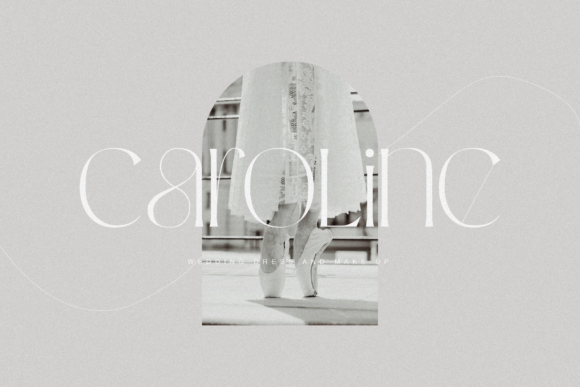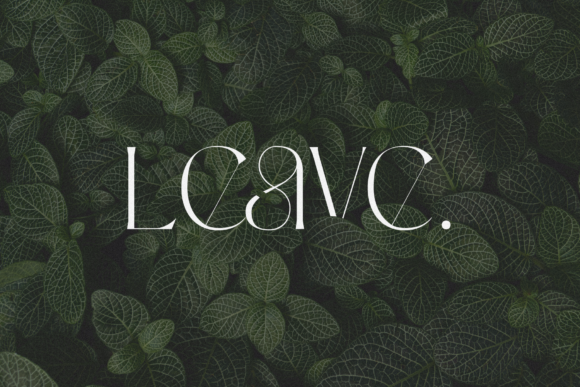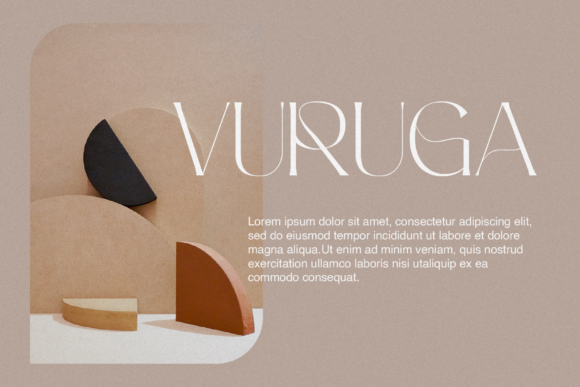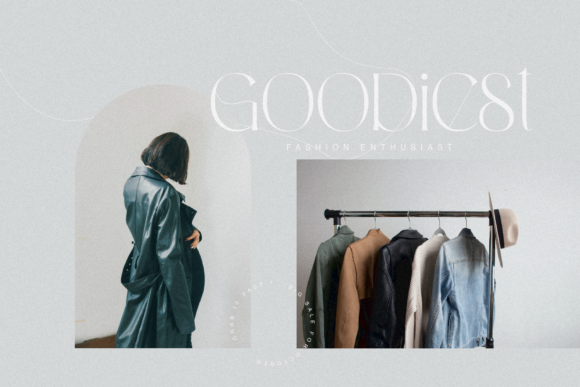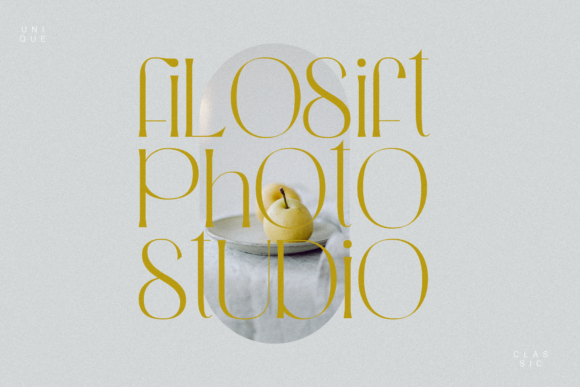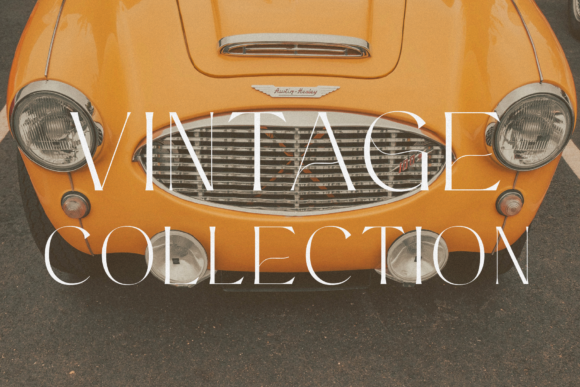
Ghafina Font: Elevate Your Design with Elegance
In the realm of typography, fonts play a pivotal role in conveying messages, expressing creativity, and capturing the essence of a brand or project. Among the myriad of fonts available, Ghafina stands out as a beacon of modernity and uniqueness, catering to the diverse needs of designers and crafters alike. This article delves into the world of Ghafina Font, exploring its characteristics, benefits, and the myriad ways it can enhance your digital and print projects.
The Essence of Ghafina Font
Ghafina is not just another font; it’s an experience. Designed with precision and a keen eye for detail, Ghafina embodies the perfect blend of modernity and elegance. Its unique design elements make it versatile, allowing it to seamlessly fit into various design contexts, from sleek digital interfaces to captivating print materials.
Key Features of Ghafina Font
- Unique and Modern Design: Ghafina’s design is contemporary, making it perfect for projects that demand a fresh and modern look.
- Versatility: Its adaptability makes it suitable for a wide range of applications, including digital media, print materials, logos, and more.
- Elegant Touch: Ghafina adds a touch of sophistication and elegance to any project, helping to elevate the overall aesthetic.
- User-Friendly: Designed to be easily readable and accessible, Ghafina ensures that your message is conveyed clearly and effectively.
For designers and crafters, the right font can be a game-changer. Ghafina offers several benefits that make it a go-to choice for creative professionals:
- Time-Saving: With Ghafina, designers can significantly reduce the time spent on selecting and pairing fonts, thanks to its standalone elegance and versatility.
- Consistency: For branding projects, Ghafina can help maintain consistency across different platforms and materials, reinforcing brand identity.
- Inspiration: Ghafina’s unique design can serve as a source of inspiration, sparking creativity and encouraging experimentation in design.
Applications of Ghafina Font
The applications of Ghafina are vast and varied. Here are some of the most notable uses:
- Digital Media: Perfect for website designs, mobile apps, and social media graphics, Ghafina can help create a professional and engaging online presence.
- Print Materials: From brochures and business cards to posters and magazines, Ghafina can add a touch of elegance to any print project.
- Branding and Logos: Its unique and memorable design makes Ghafina an excellent choice for logos and brand identities.
Ghafina Font is more than just a typeface; it’s a tool for creativity, a statement of elegance, and a means to elevate your designs. Its modern and unique design, coupled with its versatility and user-friendly nature, makes it an indispensable asset for designers and crafters. Whether you’re working on a digital project, a print material, or a branding initiative, Ghafina is sure to add that special touch that sets your work apart. So, why wait? Grab Ghafina now and transform your projects with its elegant charm.